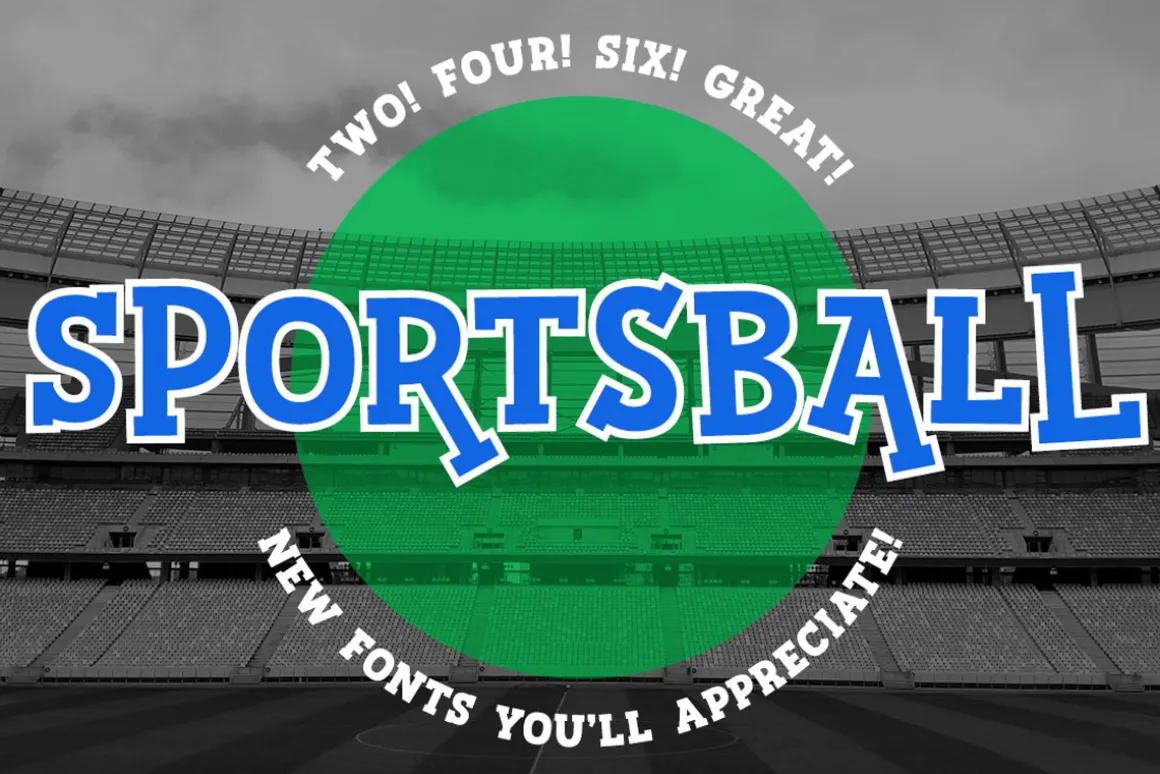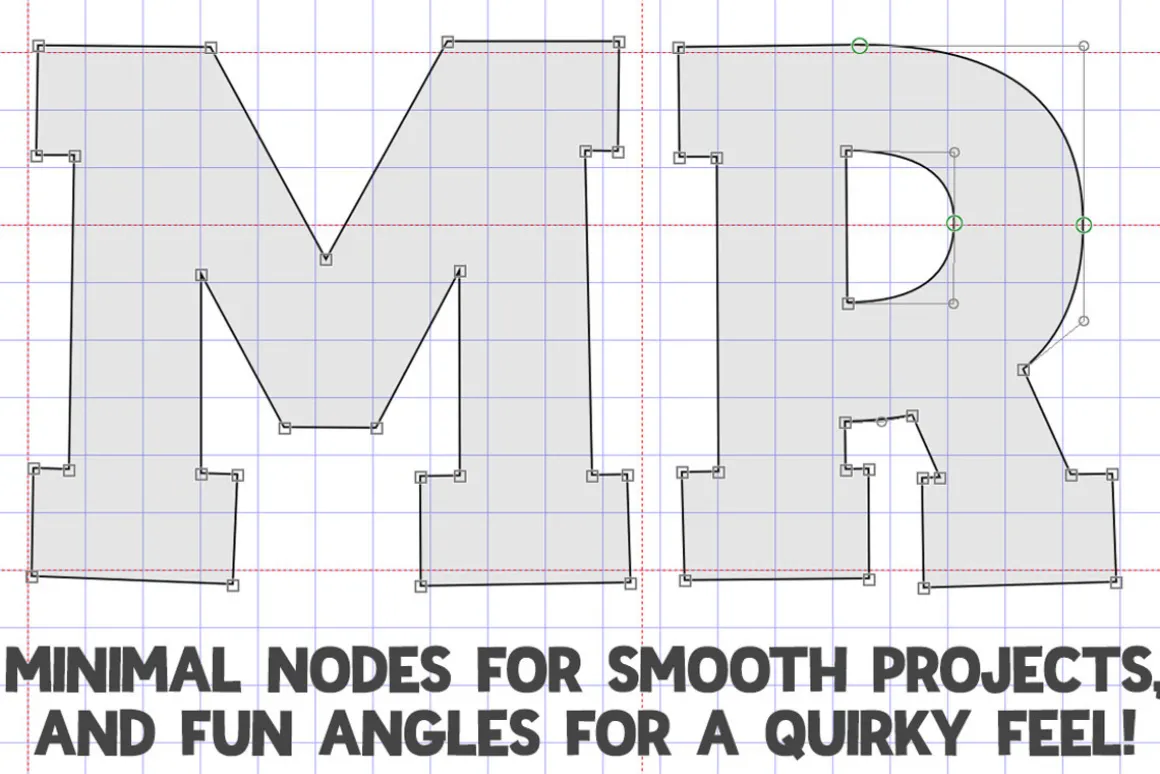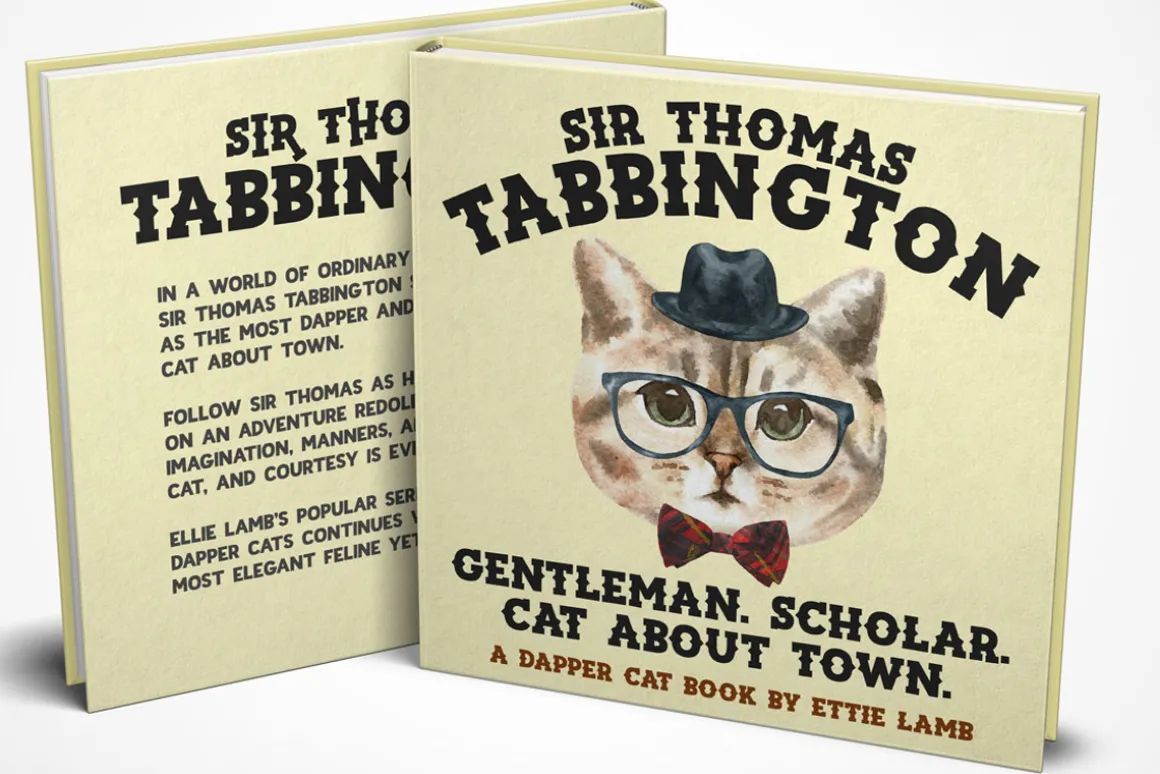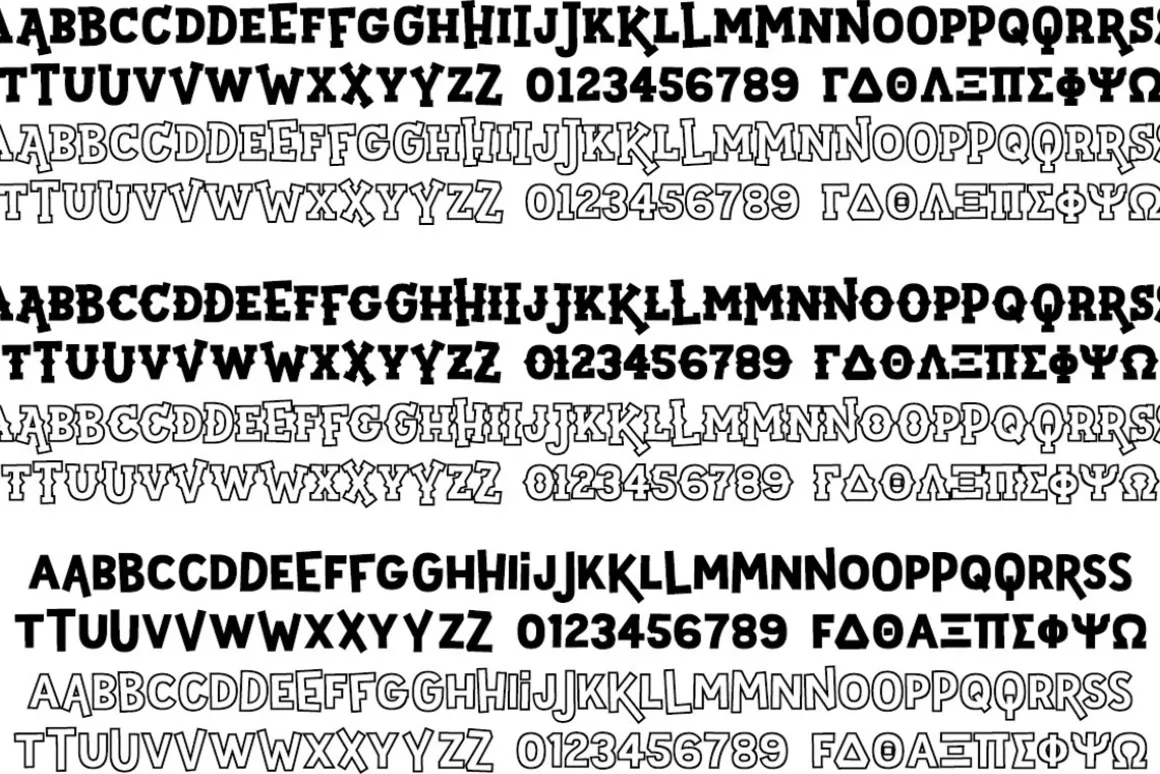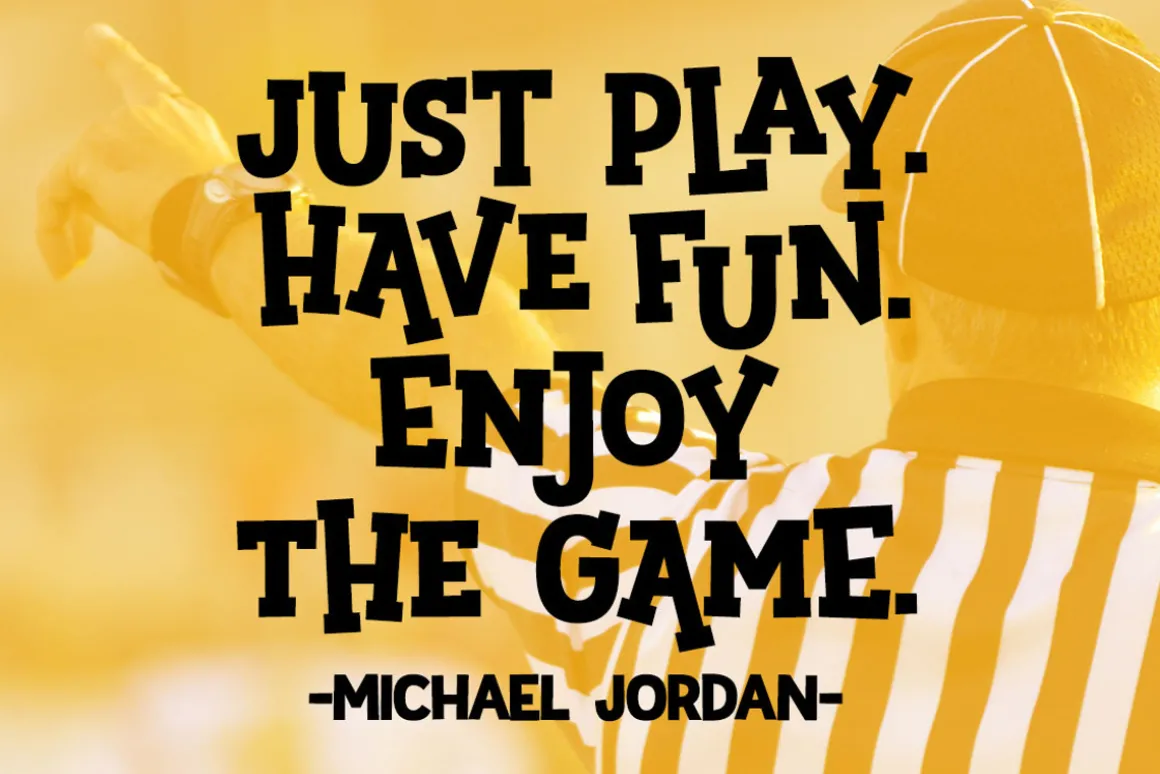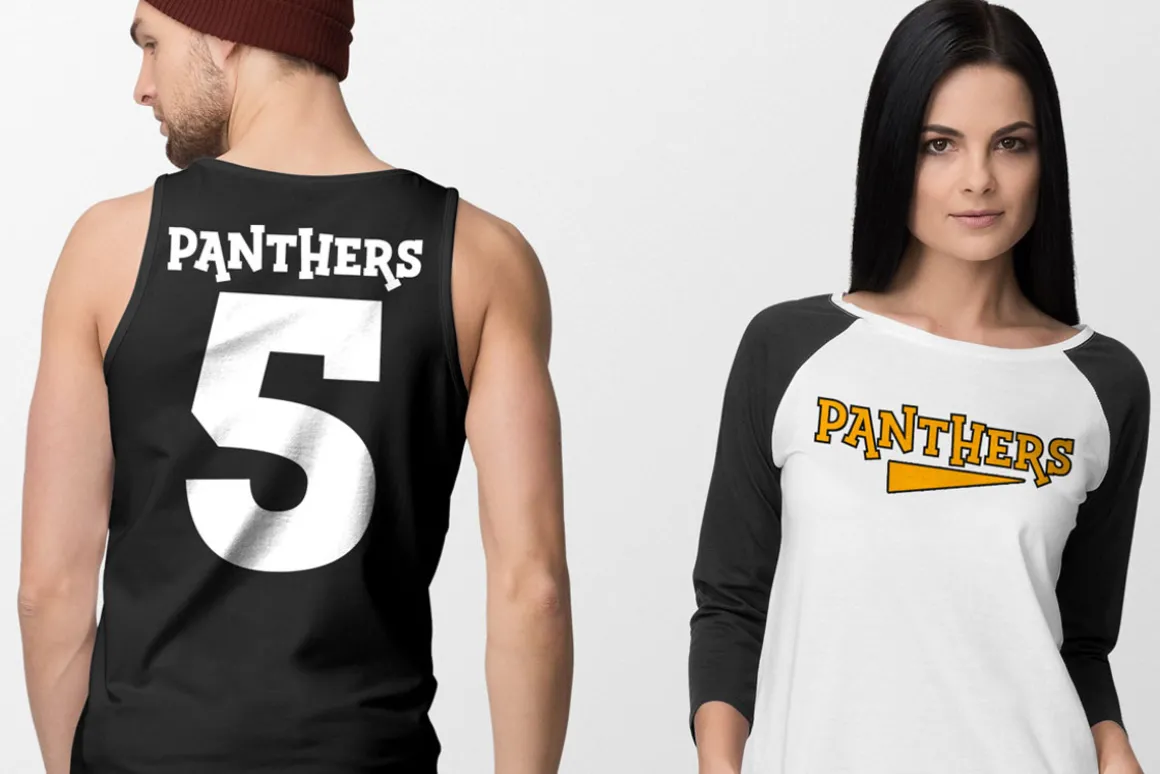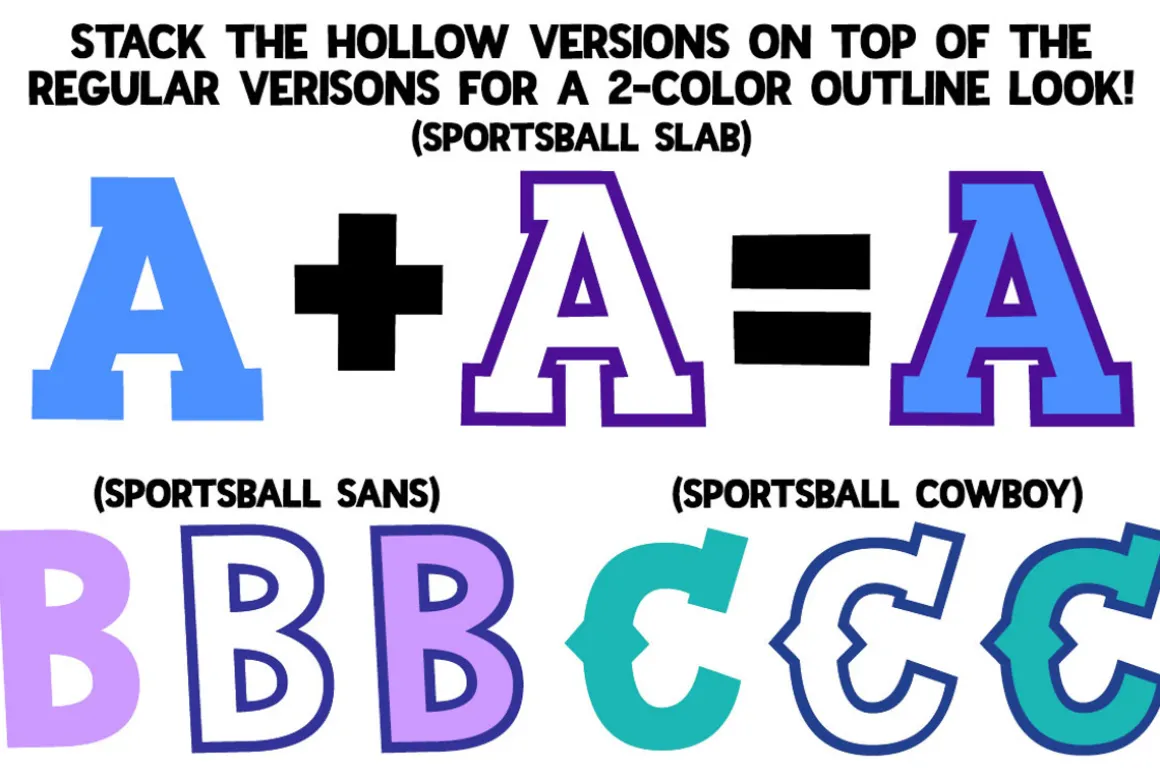
If you know my style, you know that I like to make fonts with some funky characters that you can mix and match with the regular letters. Sportsball is no different!
I created a semi-athletic-style slab serif font from scratch, using as few nodes/points as possible to ensure it would cut out smooth as butter for crafters. The uppercase set is straightforward, and can be used for a wide variety of projects. Then I made the lowercase set, where every letter is a bit different. Some are taller, some are wider, some have longer legs. Mix them in with the uppercase, and you can make a fun design with personality!
I wasn’t satisfied with just the slab serif, though. I decided to take that font and add spurs to the sides of the letters, giving everything a retro western flair. I also took the same letters and removed the serifs, adding a sans-serif to the family.
Then I figured, what the heck. I took all three styles and made hollow versions! The hollow styles can be used on their own, or they can be layered over the solid versions to make two-color outlined designs!
The Sportsball family includes:
- Sportsball Slab and Slab Hollow
- Sportsball Cowboy and Cowboy Hollow
- Sportsball Sans and Sans Hollow
- A ton of punctuation in each font
- Over 300 extended Latin characters in each font for language support, including ß, Æ, æ, Œ, œ, Å, å, and tons more!
- 24 uppercase Greek letters in each font file
- All alternates are mapped to the lowercase, for easy access in all programs